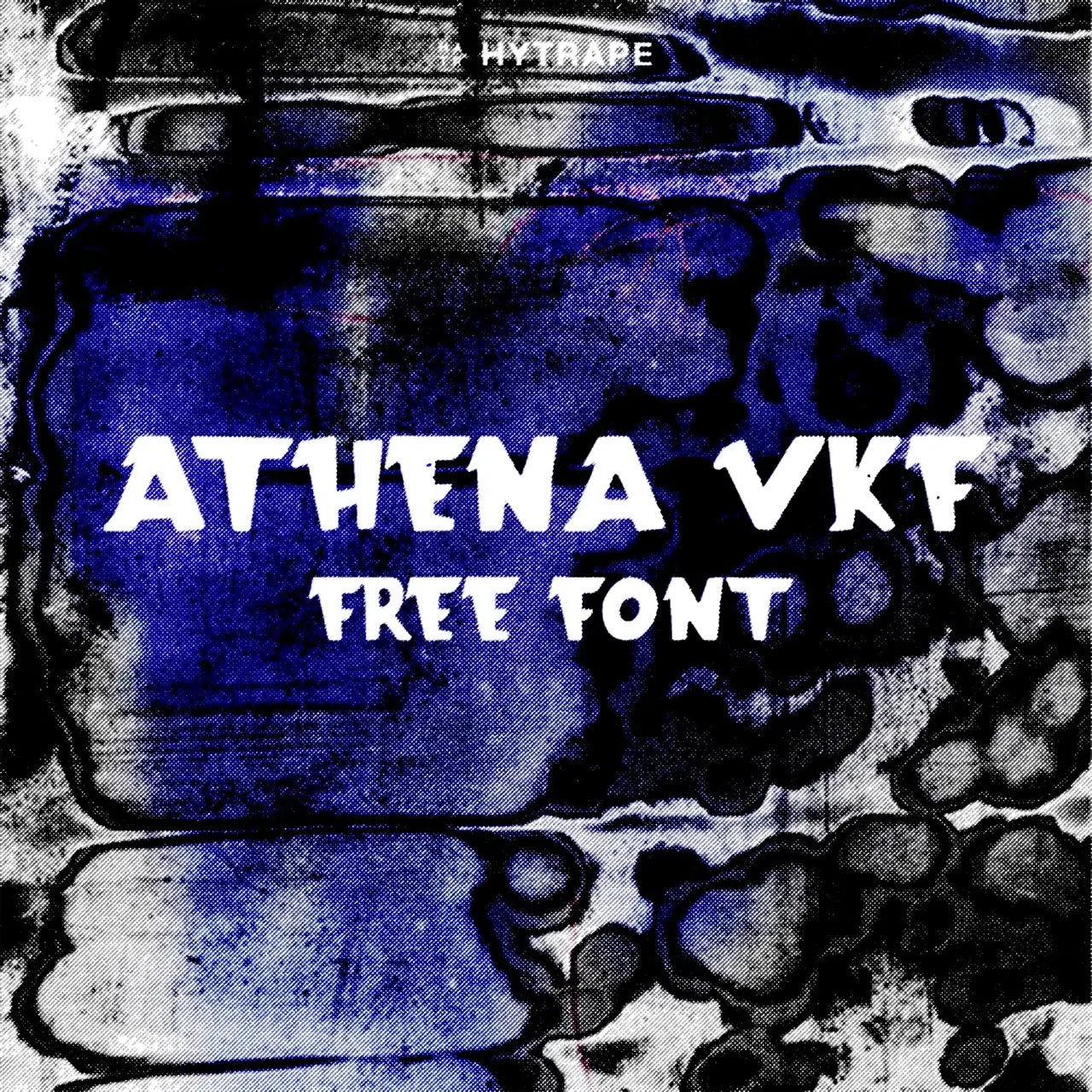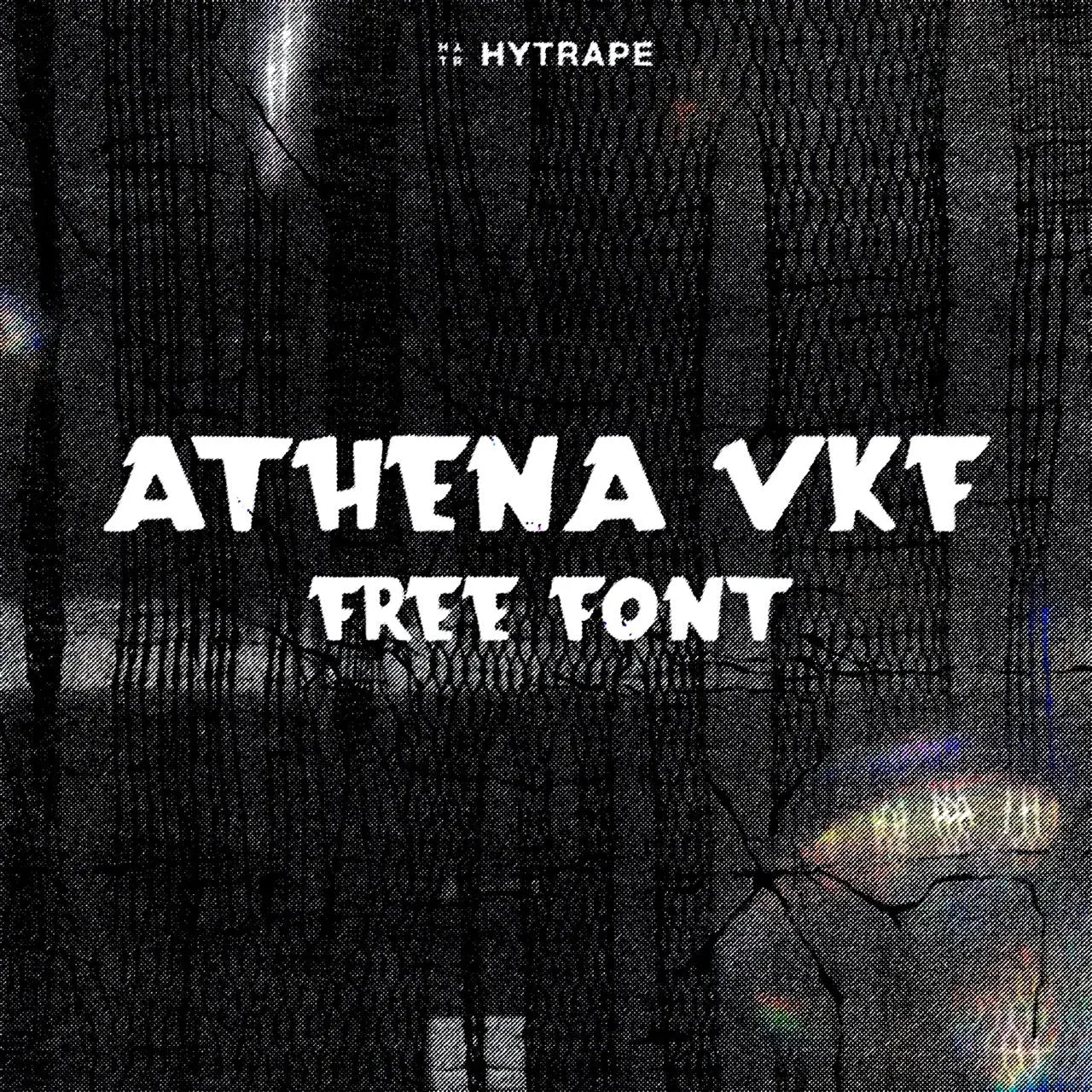
Athena is a display font in thick capitals with flared endings and a very graphic look. For strong headlines, posters and streetwear visuals.
ATHENA FONT (FREE) is an experimental font designed for professionals looking for unique and original typography. Use it legally for your personal projects.Customer reviews